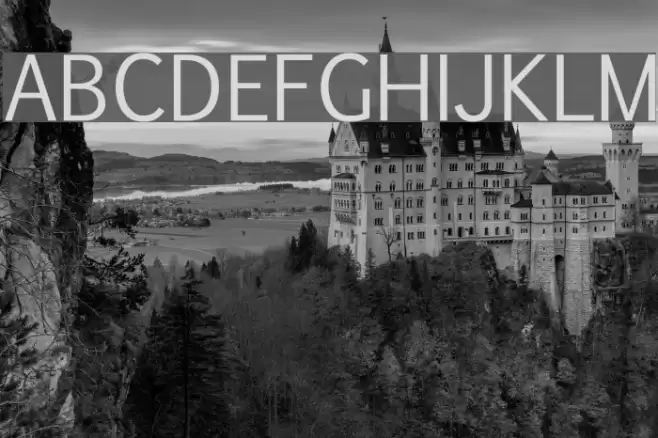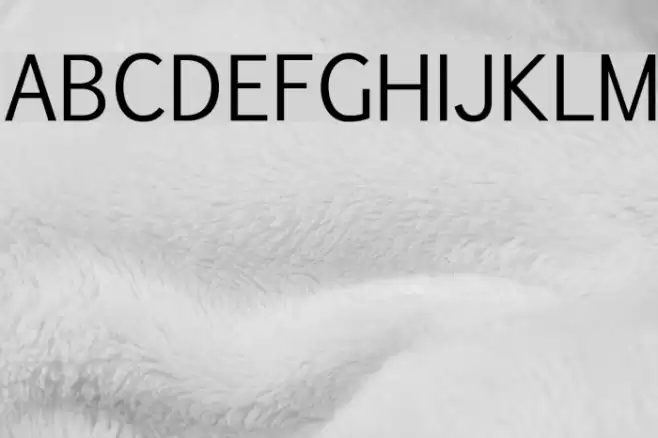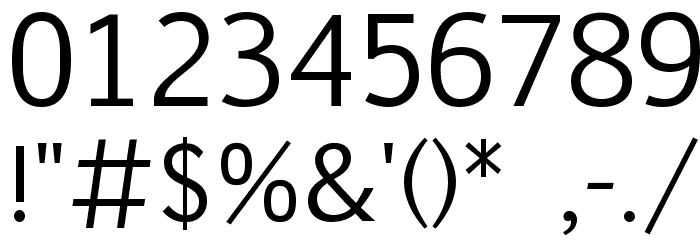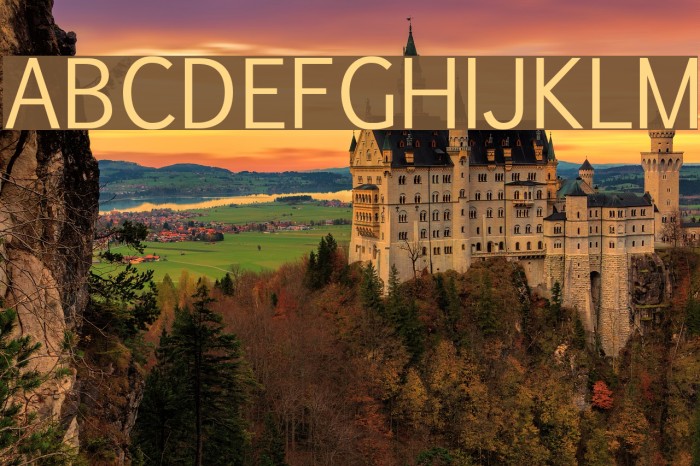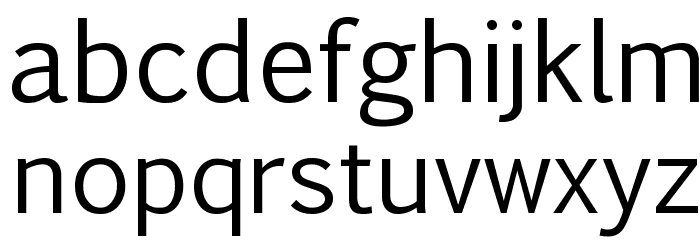
Pigiarniq
This font is a clean and modern sans-serif typeface characterized by its simplicity and readability. The letters are well-proportioned with a consistent stroke width, giving it a balanced and harmonious appearance. The uppercase and lowercase letters are distinct yet cohesive, making it versatile for various design needs. The numerals are clear and easy to read, while the special characters are neatly integrated into the overall design. This font's straightforward style makes it suitable for both digital and print media, ensuring legibility across different platforms.
A modern, clean sans-serif font with excellent readability.
- Proposed Projects: Ideal for web design, corporate branding, editorial layouts, and user interfaces.